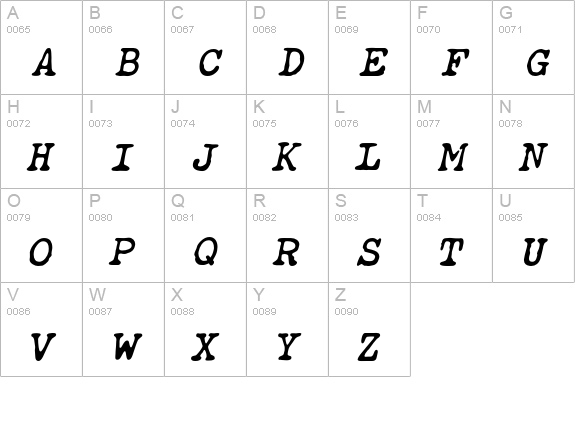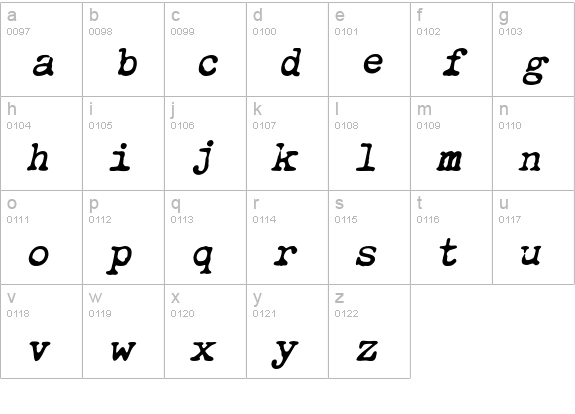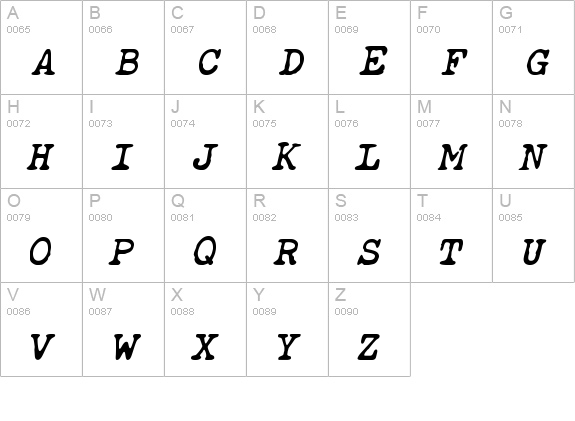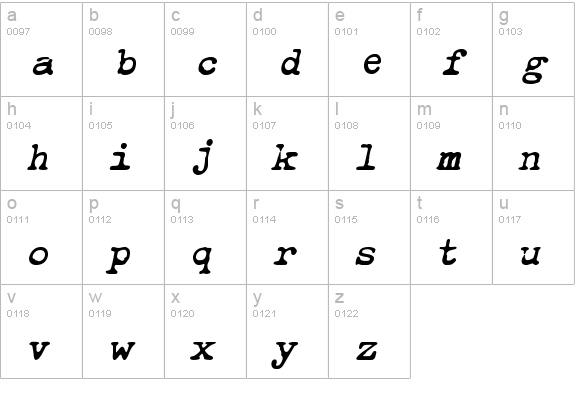
ObsoleteBoldOblique Font Details
ObsoleteBoldOblique is a striking and unique font that combines boldness with elegance in its oblique style. This font exudes a sense of sophistication and creativity, making it perfect for a variety of design projects. Its sharp edges and distinct angles give it a modern and edgy look, while its bold weight commands attention. The ObsoleteBoldOblique font is a versatile choice for a wide range of applications, from branding and advertising to editorial design and signage. Its oblique style adds a touch of dynamic movement to any text, making it stand out and draw the eye. Best of all, the ObsoleteBoldOblique font is available for free download at FontsMarket.com. This means you can easily access this stylish and impactful font for all your design needs without any cost. Don't miss out on the opportunity to enhance your projects with the ObsoleteBoldOblique font today!